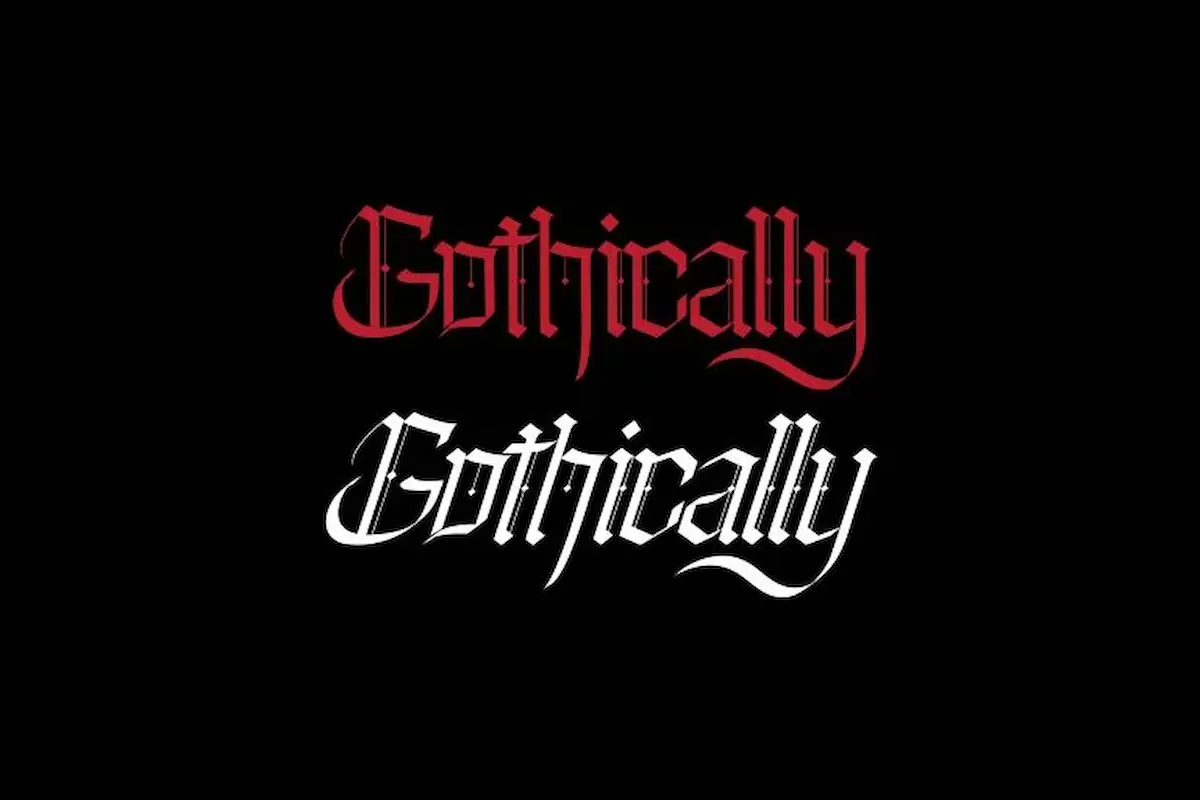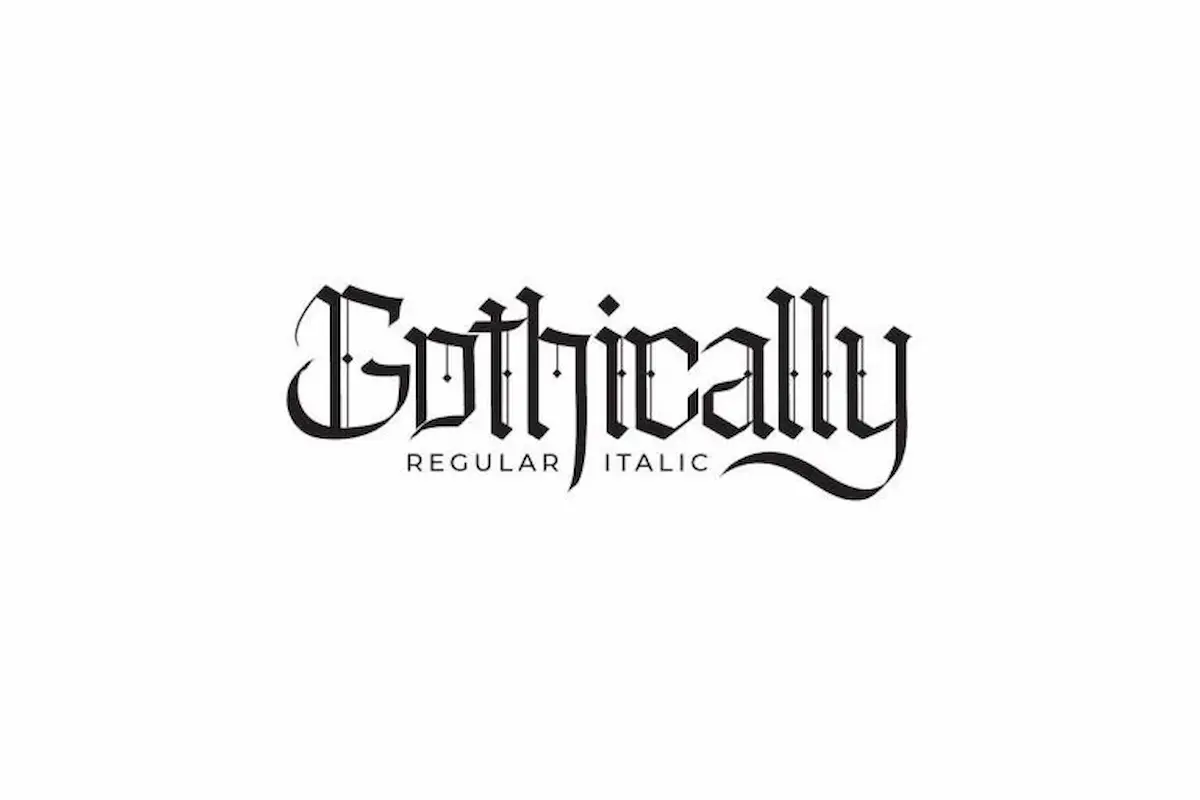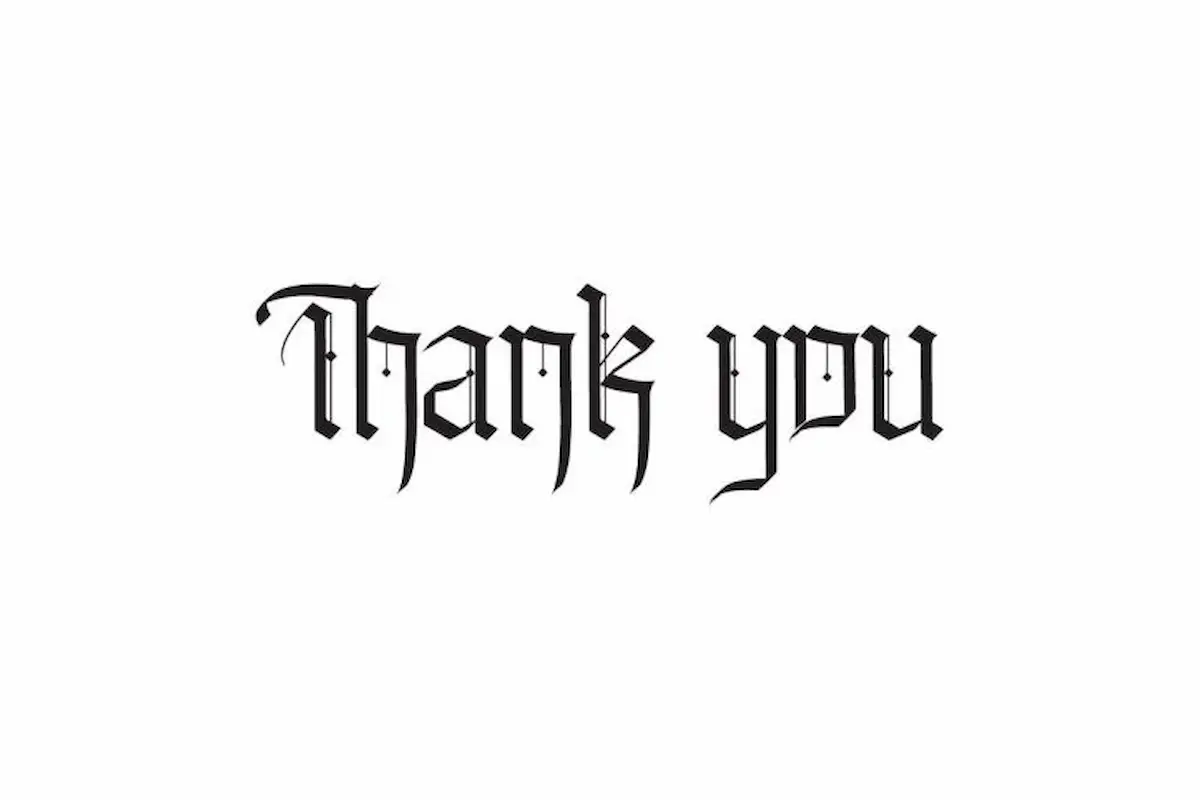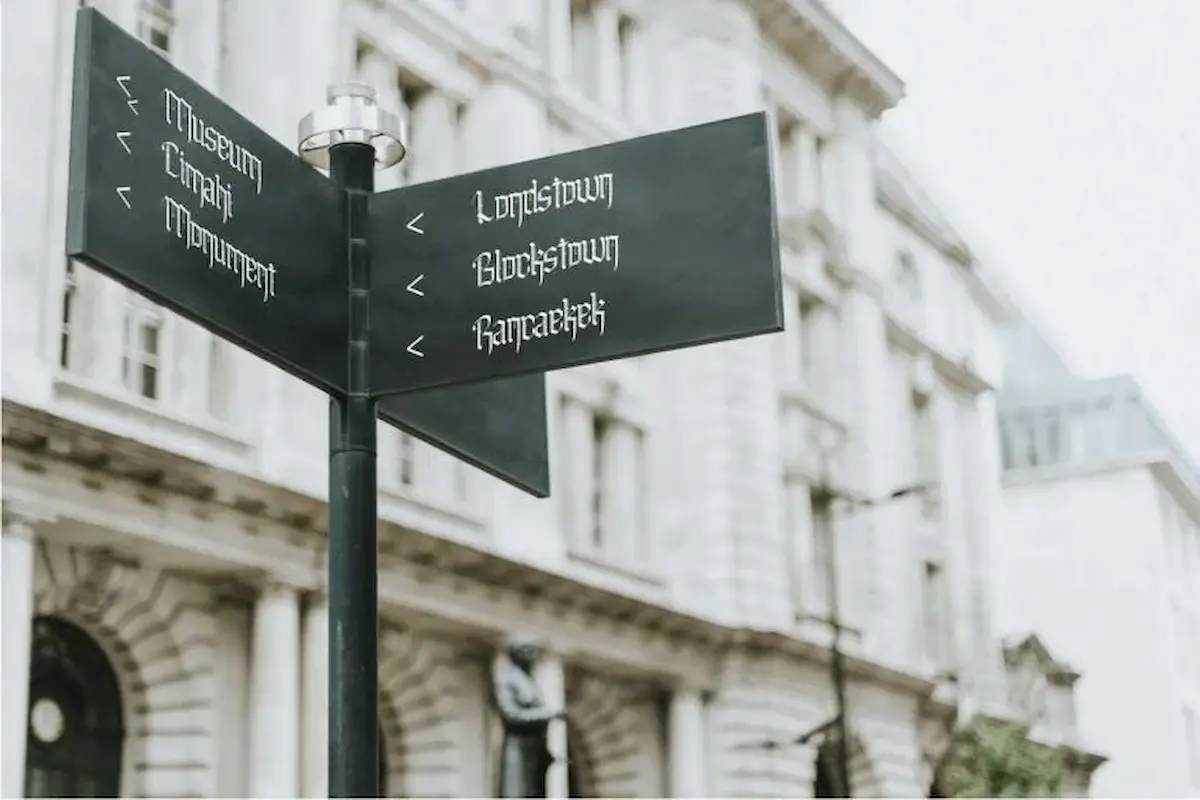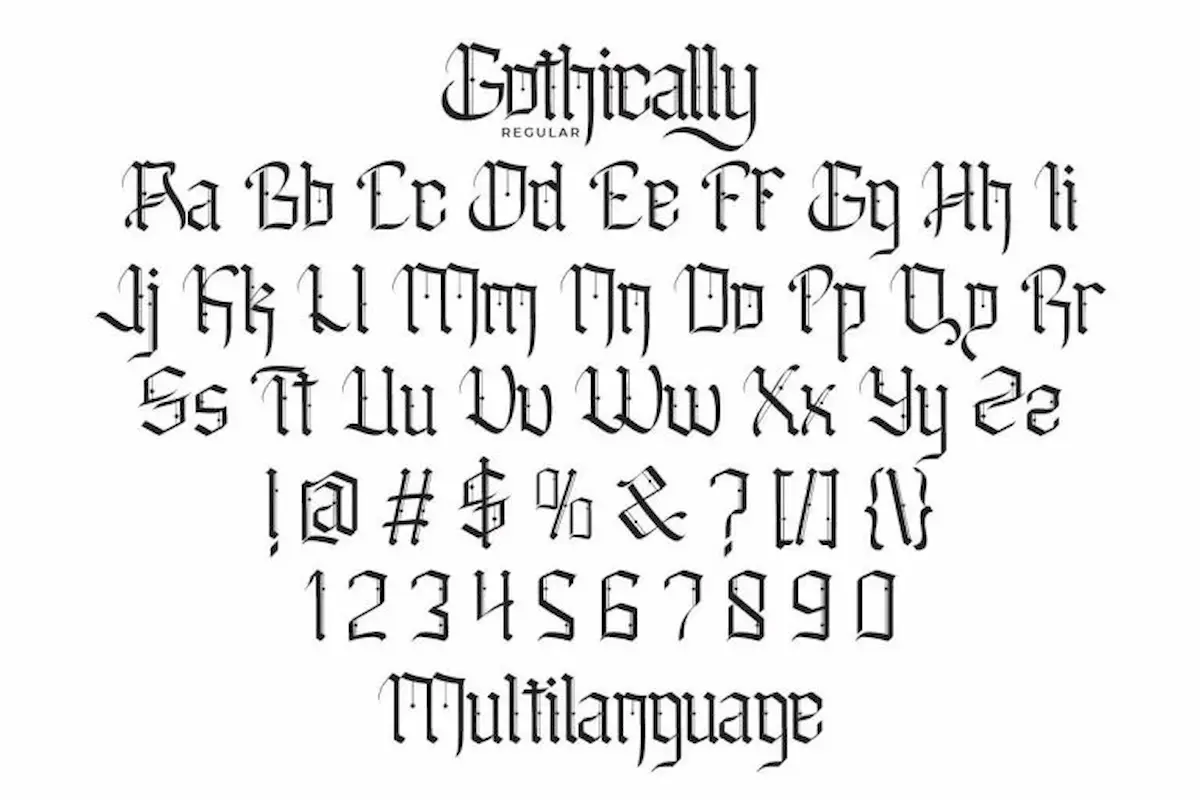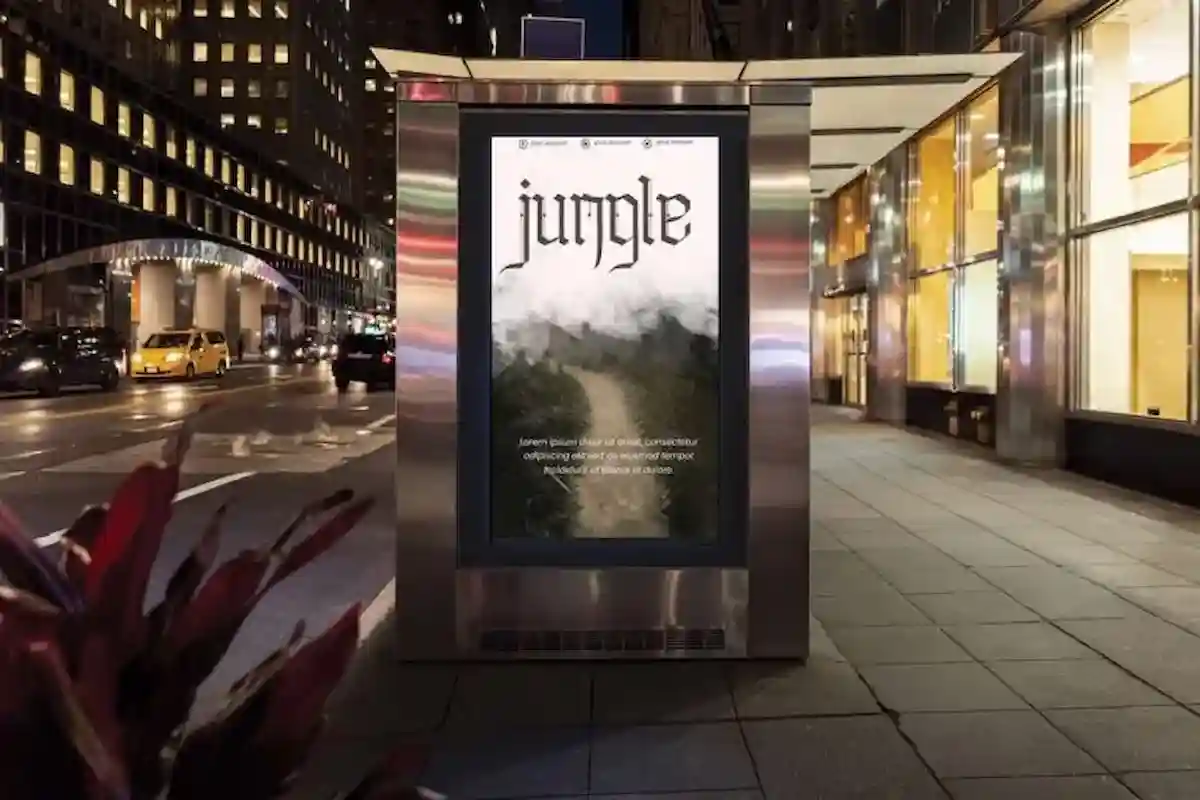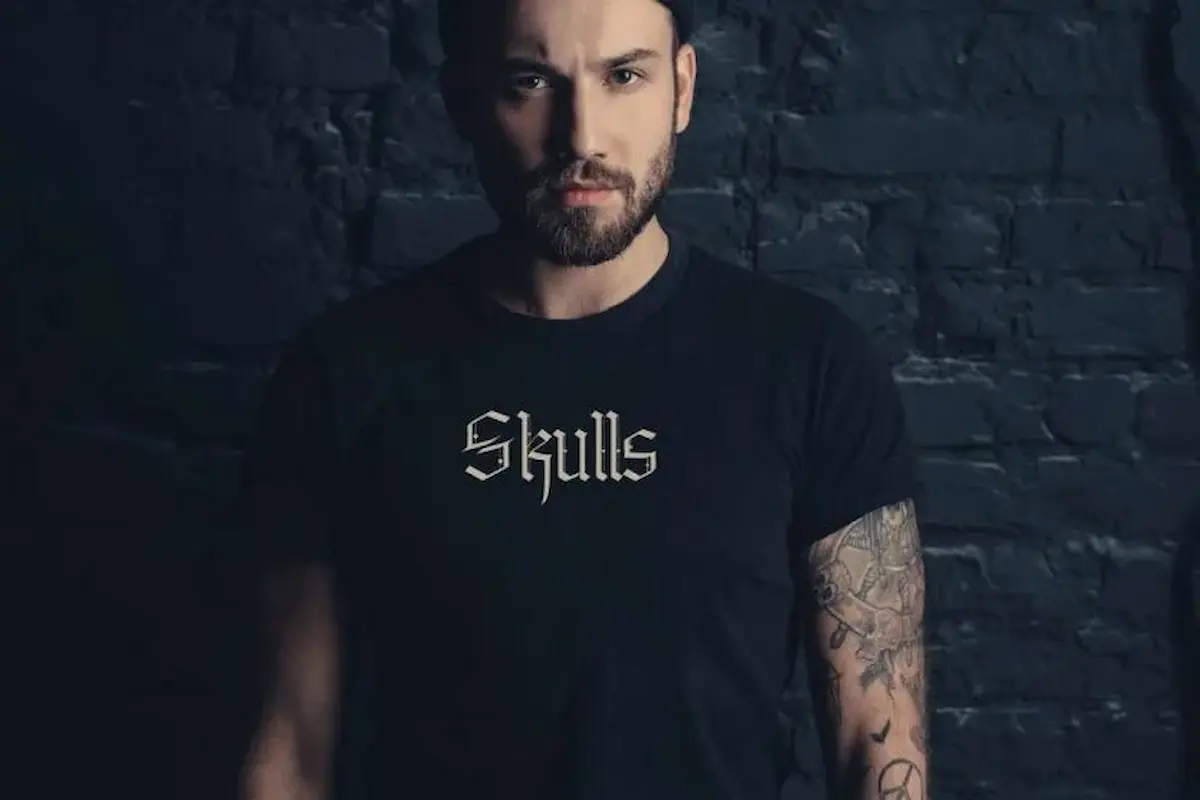
Gothically Font is a classic Gothic display font by NihStudio, made in 2021. Gothically Font will great for cafe, restaurant, music, events, automotive etc.
Gothically Font – Vintage Display Typeface with Timeless Gothic Charm
Gothically Font is a vintage display font that blends classic elegance with bold gothic style. Carefully handcrafted by NihStudio, this typeface comes in two distinctive styles: Regular and Italic. With its refined letterforms and retro-inspired details, it is the perfect choice for creative projects that demand a unique and memorable look.
Designed and handcrafted in our studio in Indonesia, Gothically Classic Font is versatile enough for both print and digital projects. It is ideal for branding, logo creation, signage, business cards, posters, flyers, invitations, and more. Popular among industries such as restaurants, cafés, music, weddings, automotive, property, and creative agencies, this font delivers a striking visual presence.
Full character set with precise spacing and kerning
Works beautifully in both modern and retro-themed designs
For designers seeking a gothic typeface with premium quality and vintage flair, Gothically Vintage Font is an exceptional choice. It combines the grace of classic lettering with the bold personality of gothic design, ensuring your projects stand out with style and sophistication.